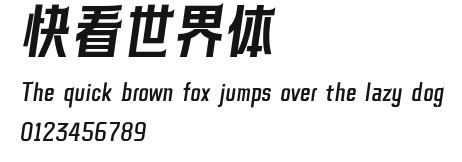
• Font Name: 快看世界体
About 快看世界体.otf
快看世界体.otf is a modern, elegant sans-serif font designed for ultimate readability and visual harmony. Perfect for branding, headlines, web design, and print materials.